Japanese warrior culture sells. That bold, aggressive brushwork you see on anime titles, ramen shop signage, and martial arts branding? It starts with choosing the best samurai fonts.
These typefaces channel feudal Japan through every stroke. Katana-sharp edges. Ink splatter textures. Calligraphy that commands attention.
This guide covers 22 samurai-style fonts worth downloading. You’ll learn what makes each one work, where to use them, and which file formats they include.
Whether you’re designing game titles, restaurant menus, or apparel graphics, you’ll find the right Japanese-inspired typeface here.
The Best Samurai Fonts
| Font Name | Primary Style Attribute | Best Use Context | Cultural Authenticity |
|---|---|---|---|
| The Last Shuriken | Sharp, weapon-inspired edges | Gaming logos, ninja-themed content | Moderate (ninja weapon reference) |
| Fujimaru | Traditional brush strokes | Restaurant menus, traditional branding | High (authentic Japanese name) |
| Midorima | Clean, manga-inspired lettering | Anime titles, comic book headers | Moderate (Japanese surname) |
| Haruto | Modern geometric angles | Tech branding, contemporary design | Moderate (popular Japanese name) |
| JANSINA | Bold, dramatic uppercase | Poster titles, action movie credits | Low (non-Japanese name) |
| Mitohan | Calligraphic flow | Tea house branding, cultural events | High (traditional aesthetics) |
| Zenjirou | Balanced, zen-inspired forms | Meditation apps, wellness brands | High (Japanese name with meaning) |
| Shoguns Clan | Military-style weight | Strategy games, historical content | High (direct historical reference) |
| OREWA | Quirky, informal strokes | Casual gaming, youth-focused brands | Moderate (Japanese pronoun) |
| Jakosta | Rough, weathered texture | Vintage posters, distressed designs | Low (non-Japanese) |
| Brutal | Aggressive, jagged edges | Heavy metal bands, horror themes | Low (generic aggressive style) |
| Tomakai | Sleek, modern Japanese fusion | Sushi restaurant branding, food packaging | Moderate (Japanese-sounding) |
| Royal Samurai | Ornate, aristocratic details | Premium product labels, luxury branding | Moderate (samurai warrior reference) |
| Ninja Naruto | Energetic, anime-style dynamics | Fan art, anime merchandise | High (popular anime reference) |
| Samurai & Blade | Sword-inspired letterforms | Martial arts studios, weapon shops | High (direct warrior culture reference) |
| Western Samurai | East-meets-West hybrid | Fusion restaurants, crossover media | Low (cultural mix, not authentic) |
| Broken Samurai | Fragmented, distressed characters | Grunge designs, battle-worn aesthetics | Moderate (warrior decline concept) |
| Onigashima | Mythical, demon-inspired forms | Fantasy games, folklore content | High (Japanese mythological island) |
| Slaztone | Experimental, abstract design | Art installations, avant-garde projects | Low (no Japanese connection) |
| CF Samurai Bob | Playful, cartoonish style | Children’s books, comedic content | Low (Western name parody) |
| Okami | Elegant, wolf-inspired aesthetics | Game titles, nature-themed brands | High (Japanese word for wolf) |
| Sakura Town | Delicate, spring-inspired softness | Tourism branding, seasonal promotions | High (iconic Japanese cherry blossom) |
The Last Shuriken
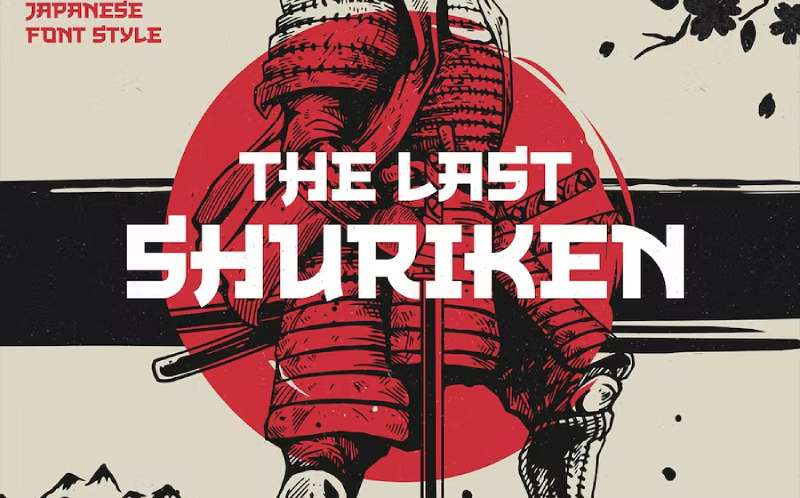
A Japanese-style display font built for impact. Created by Arterfak Project, this all-caps typeface draws inspiration from modern anime titles and Japanese food branding.
The bold strokes hit hard. Every letter shares the same cap height but with varied shapes, creating visual interest without sacrificing readability.
Character Design Elements
Thick brush-style strokes dominate the design. The serifs add structure while keeping that handcrafted feel intact.
Stylistic alternates give you flexibility. Some letters offer multiple versions through OpenType features.
Best Use Cases
- Japanese restaurant menus and signage
- Movie and anime titles
- Gaming interfaces and logos
- Poster headlines
- Apparel designs
Works best at larger sizes. Not meant for body text.
Design Inspiration
Modern Japanese food branding meets anime culture. Think ramen shop aesthetics crossed with shonen manga energy.
The Edo period warrior spirit shows through in the aggressive letterforms.
Fujimaru
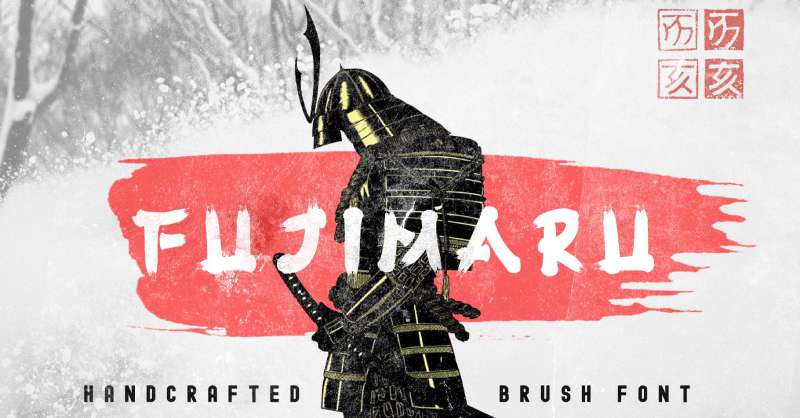
A handcrafted brush font with serious Asian flair. Nurrehmet Studio designed this one to capture that oriental calligraphy vibe in Latin characters.
The strokes look like they came from an actual brush. Letters E and M particularly stand out with their unique flourishes.
Character Design Elements
Heavy brush weight throughout. Each character shows hand-drawn imperfections that add authenticity.
The paint-like texture gives it that genuine calligraphy feel. Uppercase only.
Best Use Cases
- Brand identity for Asian-themed businesses
- Headline typography on posters
- Cartoon movie titles
- Quote graphics for social media
- Packaging design with Eastern influence
Looks stunning at display sizes. The brush details get lost when you go too small.
Font Pairing Suggestions
Pair with clean sans-serifs for body copy. Something like Roboto or Open Sans keeps the layout balanced.
Avoid combining with other decorative fonts. Let Fujimaru be the star.
Technical Specifications
Format: TTF Character Set: Uppercase, numbers, punctuation, symbols Licensing: Free for personal use. Purchase commercial license separately. Designer: Nurrehmet Studio
Single weight available.
Design Inspiration
Traditional Japanese calligraphy filtered through a modern lens. The boldness references warrior culture while staying accessible for commercial applications.
Midorima
Cool, brushed, and distinctly Japanese. Helotype created this display font for projects that need authentic Eastern aesthetics.
Ethnic and cultural elements blend into every glyph. Your Japanese restaurant or clothing brand will look right at home with this typeface.
Character Design Elements
Ink-style brushwork defines the design. Bold strokes with that hand-lettered quality.
Both uppercase and lowercase included. The Tokyo calligraphy influence shows in the fluid letterforms.
Best Use Cases
- Food menus (especially Asian cuisine)
- Poster designs and flyers
- Japanese restaurant branding
- Clothing brand identities
- Arts and cultural event materials
Perfect for print applications. The brushwork translates well to physical media.
Technical Specifications
Format: TTF, OTF, WOFF Character Set: Upper and lowercase, numbers, punctuation, multilingual Licensing: Personal use free. Commercial requires purchase. Designer: Helotype / Wyarecreatype
Works across Adobe apps, Microsoft Word, and standard design software.
Design Inspiration
Japanese ink painting meets modern display type. The martial arts culture shows through in the bold, assertive character shapes.
Fighter and samurai aesthetics without being too aggressive.
Haruto
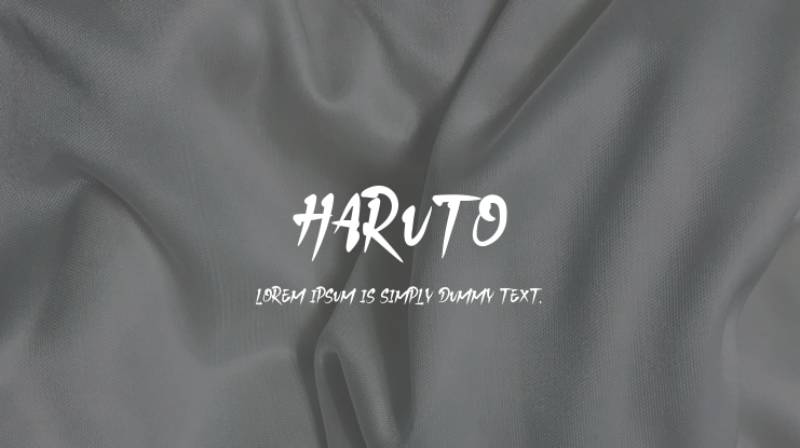
A brush font directly inspired by the Naruto anime. Lettercorner Studio packed this one with ninja energy and dynamic strokes.
Sharp, expressive brushwork mimics Japanese calligraphy. The ink splash quality references jutsu techniques from the anime.
Character Design Elements
Aggressive brush strokes everywhere. The letterforms feel like they’re in motion.
Detailed textures add depth. Very suitable for logo work and headline applications.
Best Use Cases
- Anime and manga-related projects
- Martial arts branding
- Shinobi and ninja themes
- T-shirt graphics
- Video game titles
- Movie posters with action themes
The dramatic style demands attention. Use it where you want maximum visual impact.
Font Pairing Suggestions
Balance with neutral body fonts. The intensity needs contrast.
Consider geometric sans-serifs for supporting text.
Technical Specifications
Format: OTF, TTF Character Set: Uppercase, numbers, punctuation, symbols, multilingual Licensing: Personal use only with free version. Commercial license sold separately. Designer: Muhammad Afif Ersya (Mevstory Studio / Lettercorner Studio)
Design Inspiration
Modern ninja culture meets traditional calligraphy. The Naruto anime provides the obvious reference point, but the execution stays versatile enough for broader samurai themes.
JANSINA
Japanese-style display type with a unique structural approach. Twinletter designed this to make Asian-themed projects stand out.
The shapes feel different from typical Eastern fonts. More geometric while keeping cultural authenticity.
Character Design Elements
Distinctive angular forms. The characters balance Asian aesthetics with modern graphic sensibilities.
Clean edges mixed with cultural flair. Readable despite the decorative nature.
Best Use Cases
- Logotypes and brand identities
- Food banners (especially sushi, ramen)
- Brochure headers
- Poster headlines
- Movie and book titles
- Quote graphics
The font adapts well across many design contexts. Versatile within its niche.
Technical Specifications
Format: OTF, TTF Character Set: Full Latin character set Licensing: Demo version free for personal use. Commercial license available from Twinletter. Designer: Rozikan (Twinletter)
Compatible with cutting machines like Silhouette and Cricut.
Design Inspiration
Contemporary Japanese graphic design. The font references street signage and cultural branding from modern Japan rather than historical calligraphy.
Mitohan
Bold Japanese-style font with a retro-futuristic edge. Ahweproject Studio built this with geometric elements and striking visual depth.
Four styles included: Regular, Extrude, Slant, and Stroke. Flexibility matters here.
Character Design Elements
Sharp geometric forms with Eastern influence. The letterforms feel architectural.
Bold weight throughout. The extrude version adds dimensional effects for extra punch.
Best Use Cases
- Gaming and anime projects
- Streetwear branding
- Food packaging (ramen shops, Asian cuisine)
- T-shirt designs
- Posters and headlines
- Logo development
The multiple styles let you create cohesive design systems. Use Stroke for outlines, Extrude for 3D effects.
Font Pairing Suggestions
The four built-in styles work together naturally. Combine Regular for primary text with Extrude for accents.
Pair with minimal sans-serifs when you need body copy.
Technical Specifications
Format: OTF, TTF Styles: Regular, Extrude, Slant, Stroke Licensing: Demo free for personal use. Commercial license required. Designer: Ahweproject Studio
OpenType features supported. Use Adobe apps or CorelDraw for full access.
Design Inspiration
Traditional Japanese aesthetics meet futuristic design. Kyoto street culture and retro anime combine here. The Edo period meets cyberpunk.
Zenjirou
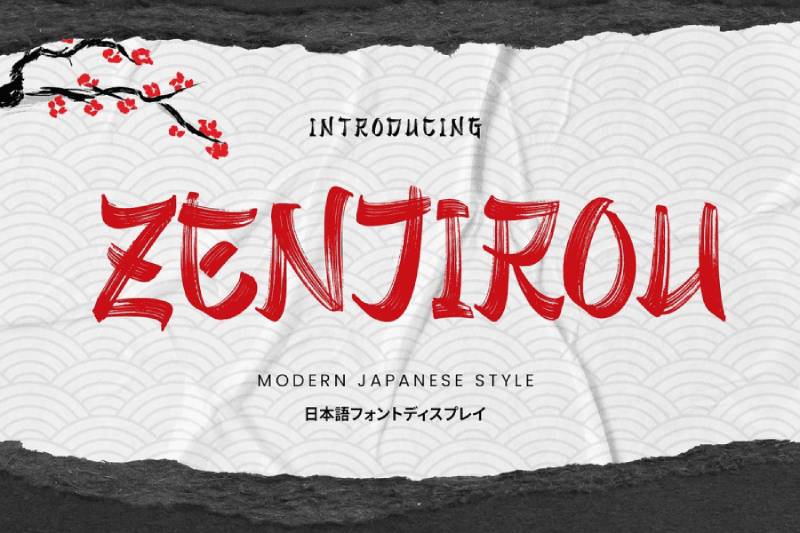
Natural brush style that captures traditional Japanese calligraphy essence. Arterfak Project created this all-caps font with authentic character.
Unique shapes and special characters give your work that genuine Eastern touch. The brushwork feels organic, not manufactured.
Character Design Elements
Traditional ink brush strokes. The irregular edges add handcrafted authenticity.
Special characters included for expanded design options. PUA encoded for easy access to alternates.
Best Use Cases
- Japanese food branding
- Merchandise and apparel
- Logo design
- Short quotes and headlines
- Movie and game graphics
- Poster typography
Works across entertainment and commercial applications. The samurai warrior aesthetic translates broadly.
Technical Specifications
Format: OTF, TTF Character Set: 97 characters, uppercase, numbers, special characters, multilingual Licensing: Free for personal use. Commercial license from Arterfak Project. Designer: Ahmad Ramzi Fahruddin (Arterfak Project)
Design Inspiration
Classical Japanese lettering traditions. The font channels ninja and warrior culture through natural brush aesthetics. Sakura season meets feudal Japan.
Shoguns Clan
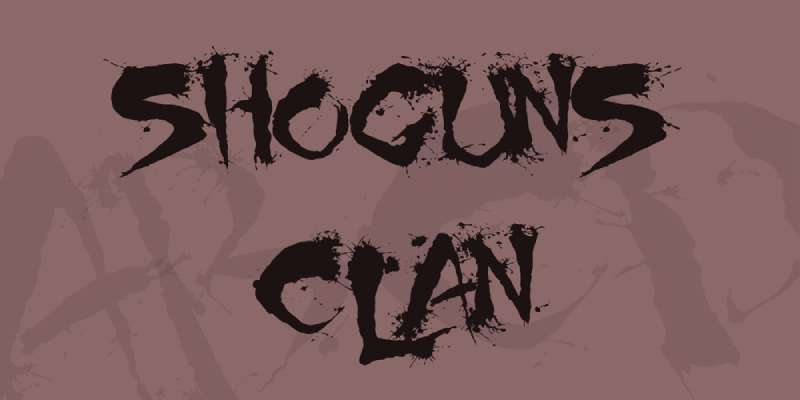
Grunge-style samurai font from 2004. Chris Hansen designed this one based on those classic 80s martial arts films.
Sharp angular lines with ink splatter effects. The characters command attention through raw visual energy.
Character Design Elements
Decorative typeface with aggressive strokes. Katana precision shows in the angular cuts.
Splattered ink textures add grunge authenticity. Bold and messy by design.
Both upper and lowercase available. 653 glyphs total.
Best Use Cases
- Martial arts event materials
- Kung-fu and action movie posters
- Video game graphics
- Album covers
- Fantasy and historical fiction projects
- Branded merchandise
The 1980s B-movie vibe works for retro projects. Also fits modern grunge aesthetics.
Technical Specifications
Format: TTF Character Set: 653 characters, full Latin extended, multilingual support Licensing: Free for personal use. Contact designer for commercial licensing. Designer: Chris Hansen (Livin Hell) Released: January 2005
Older font but still functional across modern software.
Design Inspiration
Japanese shogun warriors filtered through 80s action cinema. The feudal era meets grunge rock. Honor and elegance crash into splatter aesthetics.
The font bridges historical artistry with contemporary design trends.
OREWA
A Japanese-style display font from Twinletter with neat, elegant letterforms. Each character receives careful design attention for a polished Asian aesthetic.
Easy to read and memorable at a glance. The shapes balance cultural authenticity with modern graphic sensibilities.
Character Design Elements
Clean lines with blocky, square proportions. The letterforms reference traditional Japanese signage without overdoing the decorative flourishes.
Calligraphic influences show in subtle ways. The overall effect stays professional.
Best Use Cases
- Logotypes and brand identity
- Food banners (sushi, ramen shops)
- Brochures and posters
- Movie and book titles
- Quote graphics
- Restaurant signage
Adapts well across formal and casual applications.
Technical Specifications
Format: OTF Character Set: 194 characters, Latin extended Licensing: Free for personal use. Commercial license from Twinletter. Designer: Rozikan (Twinletter)
Compatible with cutting machines like Silhouette and Cricut.
Design Inspiration
Modern Japanese street design meets minimalist elegance. The font channels contemporary Asian typography while staying readable for international audiences.
Jakosta
Japanese-themed display font with natural letterforms. Twinletter designed each character to feel authentic while maintaining readability.
The shapes mimic Japanese script without sacrificing accessibility. Projects using this font become memorable and easy to understand globally.
Character Design Elements
Low contrast letterforms with playful proportions. The calligraphic influence shows through organic curves.
Each letter gets individual attention for natural flow. Bold weight throughout.
Best Use Cases
- Logotypes for Asian businesses
- Food banners and restaurant branding
- Brochures and promotional materials
- Posters and movie titles
- Book covers and quotes
Works across both traditional and modern applications.
Technical Specifications
Format: OTF Character Set: 193 characters Licensing: Free for personal use. Commercial license required. Designer: Rozikan (Twinletter)
Design Inspiration
Traditional Japanese culture filtered through contemporary design. The ninja and samurai aesthetic comes through without overwhelming the text.
Brutal
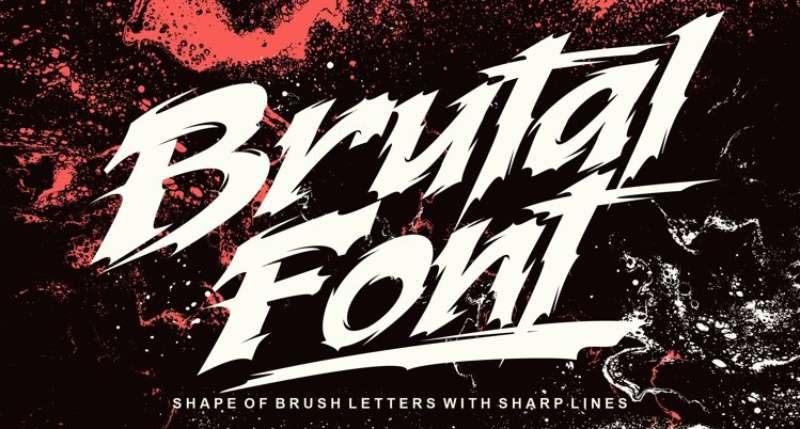
A deformed display font that gained popularity quickly. The harsh, angular letterforms demand attention in any setting.
Works equally well as headlines or on busy backgrounds. The aggressive style refuses to be ignored.
Character Design Elements
Harsh strokes with intentional imperfections. The deformed shapes create visual tension.
Bold weight dominates. Some letters look almost damaged.
Best Use Cases
- Martial arts branding (Judo, Kung Fu, Karate)
- Samurai movie posters
- Action game titles
- Sports competition materials
- Grunge-style designs
The angry vibe fits combat-related projects perfectly.
Technical Specifications
Format: TTF Character Set: Basic Latin, numbers Licensing: Varies by version. Check specific distributor. Style: Deformed display
Design Inspiration
Raw aggression meets warrior culture. The font channels the fierce intensity of martial arts without apology.
Tomakai
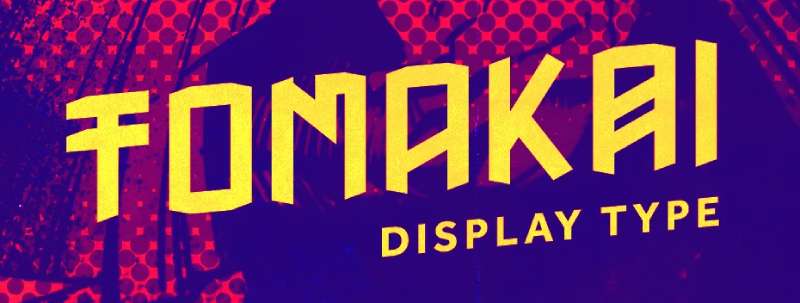
Sharp, aggressive display typeface that cuts through design clutter. ANDR35 built this for maximum visual impact in sports and entertainment contexts.
Updated with lowercase letters, alternate glyphs, and an italic weight for greater flexibility.
Character Design Elements
Angular cuts throughout. The letters feel like they could slice through paper.
Geometric precision meets aggressive styling. Sports-inspired energy shows in every character.
Best Use Cases
- Sports and performance branding
- Apparel design
- Publishing and album covers
- Music and entertainment industries
- Social media posts and advertisements
- Comics and posters
- Gaming graphics (NFL, NBA, UFC, esports)
The retro style works for sword games and samurai movies too.
Font Pairing Suggestions
Combine Regular with Italic for dynamic layouts. The alternate glyphs offer additional variety.
Pair with clean body fonts for readable supporting text.
Technical Specifications
Format: OTF, TTF, WOFF, WOFF2, EOT Styles: Regular, Italic, alternates Character Set: Upper and lowercase, numbers, punctuation Licensing: Commercial license from Creative Market or Envato. Designer: ANDR35
Design Inspiration
Sports design meets samurai intensity. Nike, Adidas, and Hydro74 aesthetics influenced the development. The tomahawk cutting action defines the angular approach.
Royal Samurai
Massive font family with 25 different styles. Daniel Zadorozny (Iconian Fonts) created this versatile sci-fi influenced samurai typeface.
Styles include: Regular, 3D, Chrome, Gradient, Halftone, Laser, Outline, Condensed, Expanded, Light, and multiple italics.
Character Design Elements
Futuristic letterforms with Eastern influence. Each style offers distinct visual effects.
- Chrome: Metallic, reflective appearance
- 3D: Dimensional depth
- Halftone: Dotted texture effects
- Laser: Sharp, tech-inspired edges
- Gradient: Smooth color transitions
219 characters across the family.
Best Use Cases
- Fashion and luxury brand designs
- Samurai-themed projects
- Boxing and wrestling promotions
- Sci-fi projects with Japanese influence
- Gaming interfaces
- Layered design compositions
The style variety handles almost any samurai-related project.
Technical Specifications
Format: TTF Styles: 25 variations Character Set: 219 characters, accents, Euro symbol Licensing: Free for personal use. Contact designer for commercial. Designer: Daniel Zadorozny (Iconian Fonts) Released: 2018
Design Inspiration
Feudal Japan meets science fiction. The font bridges traditional warrior aesthetics with futuristic technology.
Ninja Naruto
Classic brush-style font based on the famous anime series logo. sk89q designed this to capture the Naruto aesthetic.
Over 2.4 million downloads on DaFont. Capital letters only with limited punctuation.
Character Design Elements
Ink-style brush strokes throughout. Bold, stony letterforms with dramatic weight.
The characters reference the jutsu techniques and ninja scrolls from the anime.
Best Use Cases
- Anime and manga fan projects
- Sports posters (boxing, taekwondo, wrestling)
- Martial arts branding
- Straps and merchandise
- YouTube thumbnails and social graphics
The recognizable style connects immediately with anime fans.
Technical Specifications
Format: TTF Character Set: 98 glyphs, uppercase only, limited punctuation Licensing: 100% free for personal and commercial use Designer: sk89q First Released: Before 2005
Use GIMP, Photoshop, or Paint Shop Pro to add effects matching the original logo.
Design Inspiration
The Naruto anime title card. Sharp calligraphy meets ninja culture in every stroke.
Samurai & Blade
Free typeface from Weknow for individual use. Fancy styling with Asian aesthetics.
Compatible with all major platforms: PC, Mac, Linux, iOS, and Android.
Character Design Elements
Decorative letterforms with blade-like qualities. The fancy styling balances readability with visual interest.
Single style available.
Best Use Cases
- Personal design projects
- Asian-themed graphics
- Poster headlines
- Social media content
- Hobby projects
Best for non-commercial applications due to licensing.
Technical Specifications
Format: Standard font formats Styles: 1 Licensing: Free for personal use only Designer: Weknow
Design Inspiration
Samurai sword culture meets decorative typography. The blade influence shows in the sharp letter endings.
Western Samurai
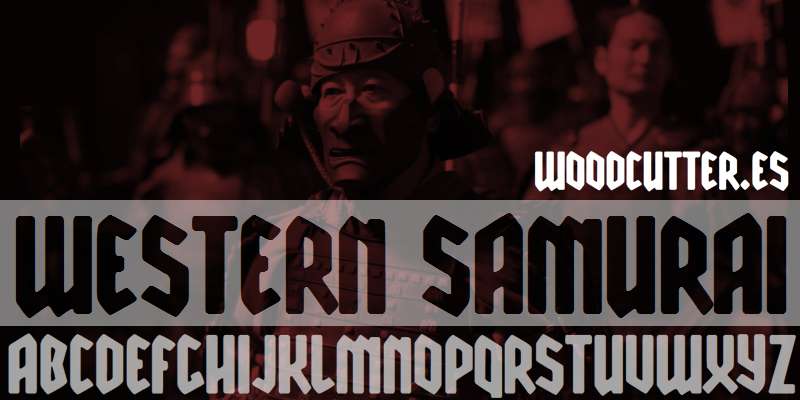
Gothic-style font from Woodcutter (2020). The Various typeface category places this between Western and Japanese aesthetics.
236 glyphs available. Works across all major platforms.
Character Design Elements
Gothic letterforms with Eastern undertones. The design bridges Western typography with samurai influence.
Decorative edges create visual interest.
Best Use Cases
- Store names and logos
- Branding projects with East-meets-West themes
- Cover designs
- Product packaging
- Stylish text overlays
The fusion style works for projects blending cultures.
Technical Specifications
Format: OTF Character Set: 236 glyphs, Latin, Latin-1 Supplement Licensing: Free for personal use. Contact for commercial. Designer: Woodcutter Manero Released: May 2020
Design Inspiration
Western gothic meets Japanese warrior culture. The font refuses to belong to just one tradition.
Broken Samurai
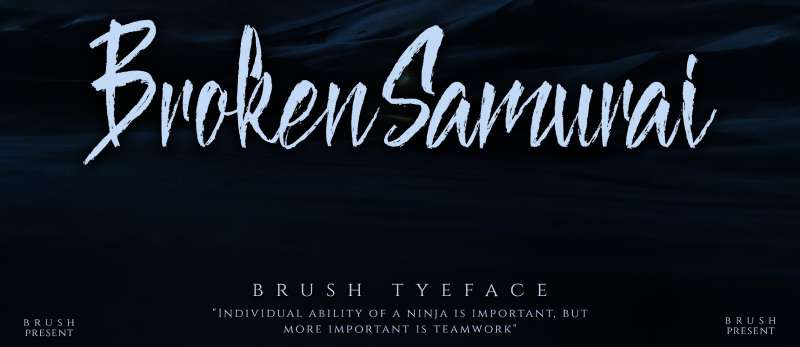
Unique brush script with soft, energetic letterforms. Meizzaluna Design created this distinctive yet beautiful font.
PUA encoded for easy access to glyphs and ligatures.
Character Design Elements
Smooth brush strokes with intentional imperfections. The “broken” quality adds character without sacrificing elegance.
Natural hand-drawn feel throughout.
Best Use Cases
- Logo and branding projects
- Business card designs
- Sign painting and signage
- Natural, organic design themes
- Strong, bold compositions
The brush style adds refined beauty to any project.
Technical Specifications
Format: OTF, TTF Character Set: Full Latin, ligatures, alternates Licensing: Premium font with commercial license available Designer: Meizzaluna Design
PUA encoding ensures all special characters work in Cricut Design Space and Silhouette Studio.
Design Inspiration
Japanese calligraphy meets modern brush lettering. The energetic strokes suggest movement and life.
Onigashima
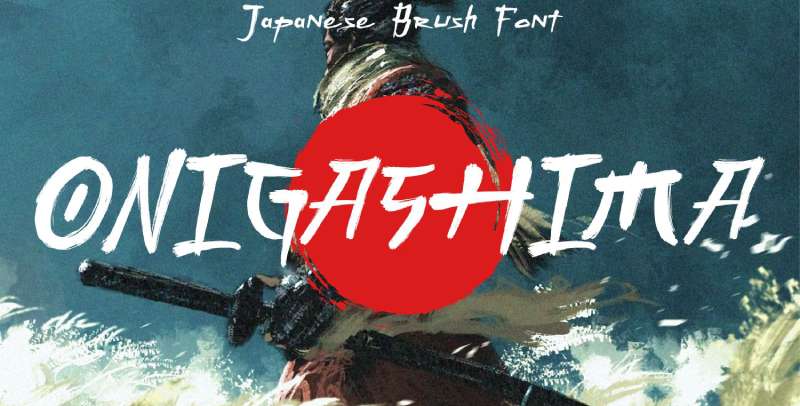
Japanese brush font with extensive stylistic options. Fachrizal Yusuf created this for Allouse Studio, a team of three designers from Indonesia.
Named after the legendary demon island from Japanese folklore.
Character Design Elements
Bold brush strokes with ink-wash qualities. Stylistic sets offer many character variations.
Multilingual support expands global usability.
Best Use Cases
- Titles and logos
- Product packaging
- Branding projects
- Magazine layouts
- Social media graphics
- Wedding materials
- Background text overlays
The versatility handles both formal and casual contexts.
Technical Specifications
Format: OTF, TTF, WOFF Character Set: Extended Latin, multilingual Licensing: Demo free for personal use. Full version from Font Bundles. Designer: Fachrizal Yusuf (Allouse Studio) Released: November 2020
OpenType features require Adobe apps or CorelDraw for full access.
Design Inspiration
Traditional Japanese calligraphy meets modern brush techniques. The demon island name suggests fierce, mythological power.
Slaztone
Brush-style font inspired by samurai culture and martial arts. The letterforms carry the warrior spirit in every stroke.
Designed for projects needing authentic Eastern athletics aesthetics.
Character Design Elements
Brushed letterforms with martial arts energy. The strokes suggest movement and discipline.
Bold weight commands attention.
Best Use Cases
- Martial arts class flyers
- Sports branding
- Samurai-themed posters
- Fighting game graphics
- Dojo signage
The cultural connection runs deep.
Technical Specifications
Format: Standard font formats Character Set: Basic Latin Licensing: Check distributor for terms Style: Brush display
Design Inspiration
Bushido honor code meets brush calligraphy. The font channels centuries of warrior tradition.
CF Samurai Bob
Geometric, block-style font with Asian influence. Steve Cloutier (CloutierFontes) designed this for martial arts and animation projects.
Capital letters only. The angular shapes retain hints of Chinese characters in a simplified Western format.
Character Design Elements
Square, angular letterforms. The geometric construction creates a clean, modern look.
Block style with faux-Asian characteristics. Sharp corners throughout.
Best Use Cases
- Puzzle and building games
- Animated film titles
- Legendary animations from Japan
- Children’s martial arts content
- Poster titles
- Website banners
The approachable style works for all ages.
Technical Specifications
Format: TTF Character Set: 66 glyphs, uppercase only Licensing: Free for personal use. Commercial license from CloutierFontes. Designer: Steve Cloutier (CloutierFontes) Released: October 2012
Design Inspiration
Japanese block lettering meets Western simplicity. The geometric approach makes Eastern aesthetics accessible.
Okami
Hand-drawn brush font with rough, bold letterforms. Tugcu Design Co. (Mehmet Reha Tugcu) created this for attention-grabbing headlines.
“Okami” means “wolf” in Japanese. The font lives up to its fierce namesake.
Character Design Elements
Rough edges with graffiti influence. Each letter shows hand-painted texture.
Alternate styles toggle via Caps Lock. The variations prevent repetitive-looking text.
Best Use Cases
- Logos and branding
- Print projects
- Posters and headlines
- Street and urban themes
- Sports styling with warrior elements
- Halloween and horror projects
- Fashion and Instagram graphics
The rough aesthetic fits edgy designs perfectly.
Technical Specifications
Format: OTF, TTF Character Set: Uppercase multilingual, numbers, punctuation, alternates Licensing: Demo free for personal use. Commercial from Creative Market. Designer: Tugcu Design Co.
Part of a larger brush font bundle.
Design Inspiration
Japanese brush painting meets urban graffiti. The legendary hero aesthetic shows through in every stroke.
Sakura Town
Hand-painted brush font inspired by Japanese calligraphy. Hendry Juanda designed this for Letterhend Studio.
Named after the cherry blossom (sakura), the font carries elegance and authenticity.
Character Design Elements
Authentic brush strokes with calligraphic flow. The hand-painted quality shows in every letter.
Bold weight with refined beauty.
Best Use Cases
- Logos and branding
- Invitations and labels
- Magazines and books
- Greeting and wedding cards
- Packaging design
- Fashion and makeup branding
- Stationery and novels
- Advertising materials
- T-shirts and sportswear
The formal elegance handles professional contexts well.
Technical Specifications
Format: OTF Character Set: 98 glyphs Licensing: Demo free for personal use. Commercial license from Creative Fabrica. Designer: Hendry Juanda (Letterhend Studio) Released: August 2021
Works in Adobe apps, Canva, Cricut, and Microsoft products.
Design Inspiration
Japanese calligraphy tradition meets modern brush lettering. The cherry blossom namesake suggests seasonal beauty and cultural depth.
FAQ on The Best Samurai Fonts
What makes a font “samurai style”?
Samurai fonts feature bold brush strokes, ink splatter textures, and angular letterforms inspired by Japanese calligraphy. They reference feudal Japan aesthetics, katana imagery, and warrior culture through aggressive, hand-drawn character designs.
Are samurai fonts free to download?
Many samurai fonts offer free personal use versions. Commercial projects typically require purchasing a license. Check DaFont, Creative Market, or 1001 Fonts for both free and premium Japanese-inspired typefaces.
Can I use samurai fonts for commercial projects?
Yes, but verify the licensing first. Most free downloads restrict commercial use. Purchase proper licenses from foundries or marketplaces like MyFonts and Envato Elements for business applications like branding or merchandise.
What are the best uses for samurai fonts?
These display fonts work best for logos, poster headlines, game titles, anime projects, and restaurant branding. They’re designed for large sizes. Avoid using them for body text or long paragraphs.
Do samurai fonts include Japanese characters?
Most samurai-style fonts contain Latin characters only. They mimic Japanese calligraphy aesthetics without actual Kanji, Hiragana, or Katakana. For authentic Japanese scripts, search specifically for multilingual Japanese typefaces.
Which file formats do samurai fonts come in?
Standard formats include TTF (TrueType) and OTF (OpenType). Some premium options also provide WOFF files for web use. OTF typically offers more OpenType features like stylistic alternates.
How do I pair samurai fonts with other typefaces?
Combine samurai display fonts with clean sans-serifs for body copy. Roboto, Open Sans, or similar neutral fonts create balance. Avoid pairing with other decorative typefaces. Let the Japanese-style font dominate.
Are samurai fonts good for logos?
Absolutely. Bold brush fonts translate well to logo design and brand identity. Their strong visual presence works for martial arts studios, Asian restaurants, gaming companies, and entertainment brands.
What’s the difference between samurai and Japanese fonts?
Samurai fonts are decorative Latin typefaces styled to look Japanese. Actual Japanese fonts contain native scripts like Kanji. Samurai fonts capture Eastern aesthetics without requiring Japanese language support.
Where can I download quality samurai fonts?
DaFont and 1001 Fonts offer free options. Creative Market, MyFonts, and Envato Elements sell premium versions with commercial licensing. Font Squirrel provides free options cleared for commercial work.
Conclusion
Finding the best samurai fonts comes down to matching style with purpose. Each typeface carries different energy, from aggressive ninja aesthetics to refined Edo period elegance.
Consider your project requirements first. Logo work needs bold brush strokes that scale well. Poster headlines demand display fonts with visual weight.
The 22 fonts covered here range from grunge splatter styles to clean oriental lettering. Some reference Bushido warrior culture. Others pull from sumi ink calligraphy traditions.